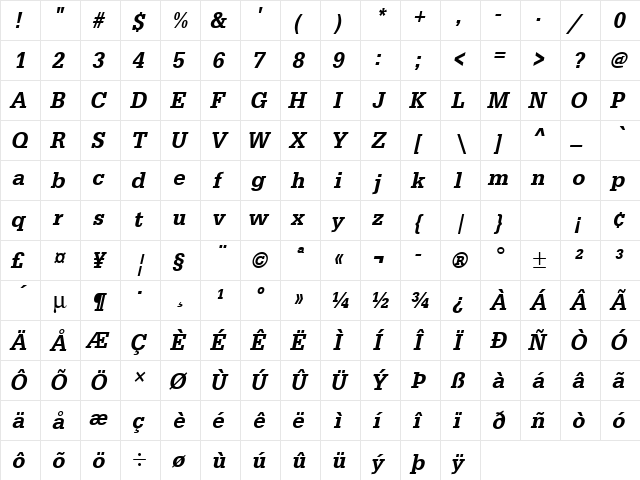
URWEgyptienneTMedExtNar Oblique
Design Context for URWEgyptienneTMedExtNar Typeface
URWEgyptienneTMedExtNar offers clean, dependable letterforms without strong stylistic allegiance, making it a practical choice for designers who need flexibility. The dynamic lean of this cut emphasises speed and emphasis in any layout.
Pro Tip: Use URWEgyptienneTMedExtNar for emphasis, pull quotes, and subheadings where its slanted energy can add rhythm to the layout.